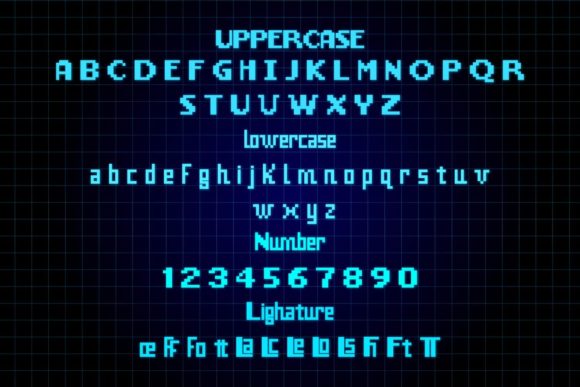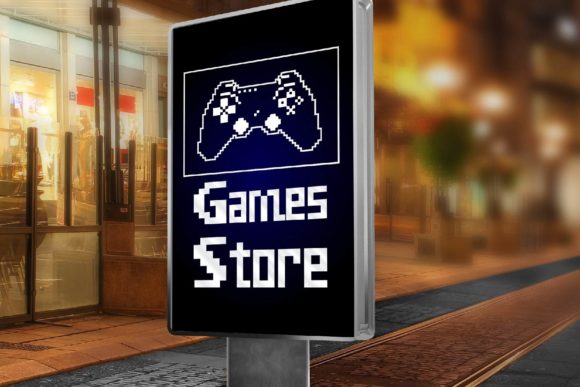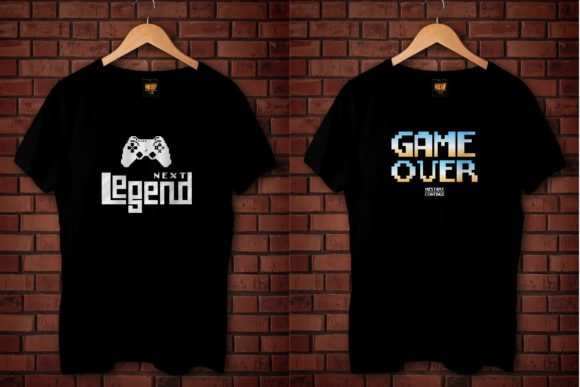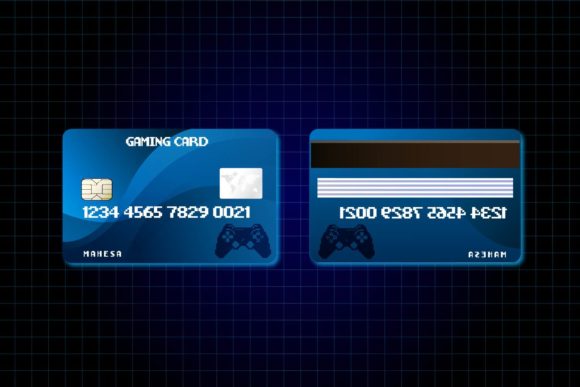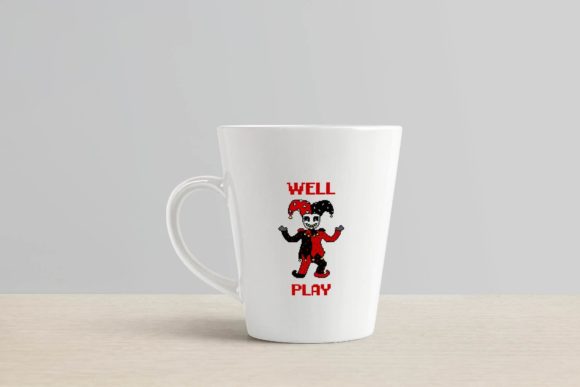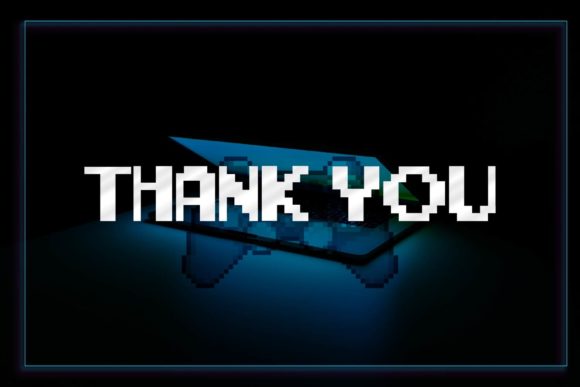
Introduction to Logicpic Font
As a designer, have you ever been stuck on a creative project, searching for that perfect font to give it an edge? It’s like being on the verge of a breakthrough, but just need that one crucial element to bring your vision to life. That’s where the Logicpic Font comes in – a game-changing design resource that will elevate your web designs, business cards, and more.
With its assertive and robotic styled display font, Logicpic Font is the perfect addition to any high-quality design. Whether you’re working on a futuristic concept or just need a touch of modernity, this font is sure to deliver. And the best part? It’s available for free download, making it an accessible and valuable resource for designers of all levels.
Imagine being able to add a touch of sophistication and futurism to your designs with just one click. That’s what the Logicpic Font offers – a transparent background and high-quality design that will take your creative projects to the next level.
Key Features of Logicpic Font
- Transparent background, allowing for seamless integration with various design elements.
- Unique, modern design aesthetic making it perfect for modern branding, packaging, and digital design projects.
- Easy to customize and edit, allowing designers to tailor the font to their specific needs.
- Perfect for use in various design applications, including logos, icons, graphics, and typography-based designs.
Honest Review: Logicpic Font
I recently had the chance to work with the Logicpic Font, and I must say it’s been a great addition to my design resource library. This font offers high quality and is available for a free download, which is always a plus. One of the standout features of Logicpic Font is its versatility – it’s perfect for a wide range of creative projects, from branding to digital art.
Here are some things that work well with the Logicpic Font:
- ✨ Easy to read: The font is designed to be clear and legible, making it perfect for body text or headings.
- ✨ Versatile: As I mentioned earlier, the font can be used for a variety of creative projects, from logos to infographics.
- ✨ High-quality design: The font is designed with attention to detail, resulting in a professional and polished look.
- ⚠️ Limited character set: While the font is great for most English characters, it may not include all the characters you need for a specific project.
- ⚠️ Not suitable for all designs: The font’s style may not be suitable for every design project, so it’s worth considering the tone and style of your project before using it.
Overall, I’m really impressed with the Logicpic Font. It’s a great addition to my design resource library, and I’m sure I’ll be using it for many creative projects in the future. If you’re looking for a high-quality font for your next project, I’d definitely recommend checking it out – especially if you’re looking for a font with a transparent background, which is perfect for layered designs.
The Logicpic Font is a versatile design resource that can elevate your creative project with its high-quality, transparent background. This guide will walk you through the process of using the Logicpic Font in various design platforms.
Tips for Getting the Most Out of Logicpic Font
1. Experiment with different font sizes and styles to achieve the desired effect.
2. Use the transparent background to create a sense of depth and dimension in your design.
3. Combine the Logicpic Font with other design elements to create a visually appealing project.
The Logicpic Font is ideal for creative projects such as infographics, brochures, and social media graphics. Its high-quality design and transparent background make it perfect for showcasing text and graphics in a clean and modern way.